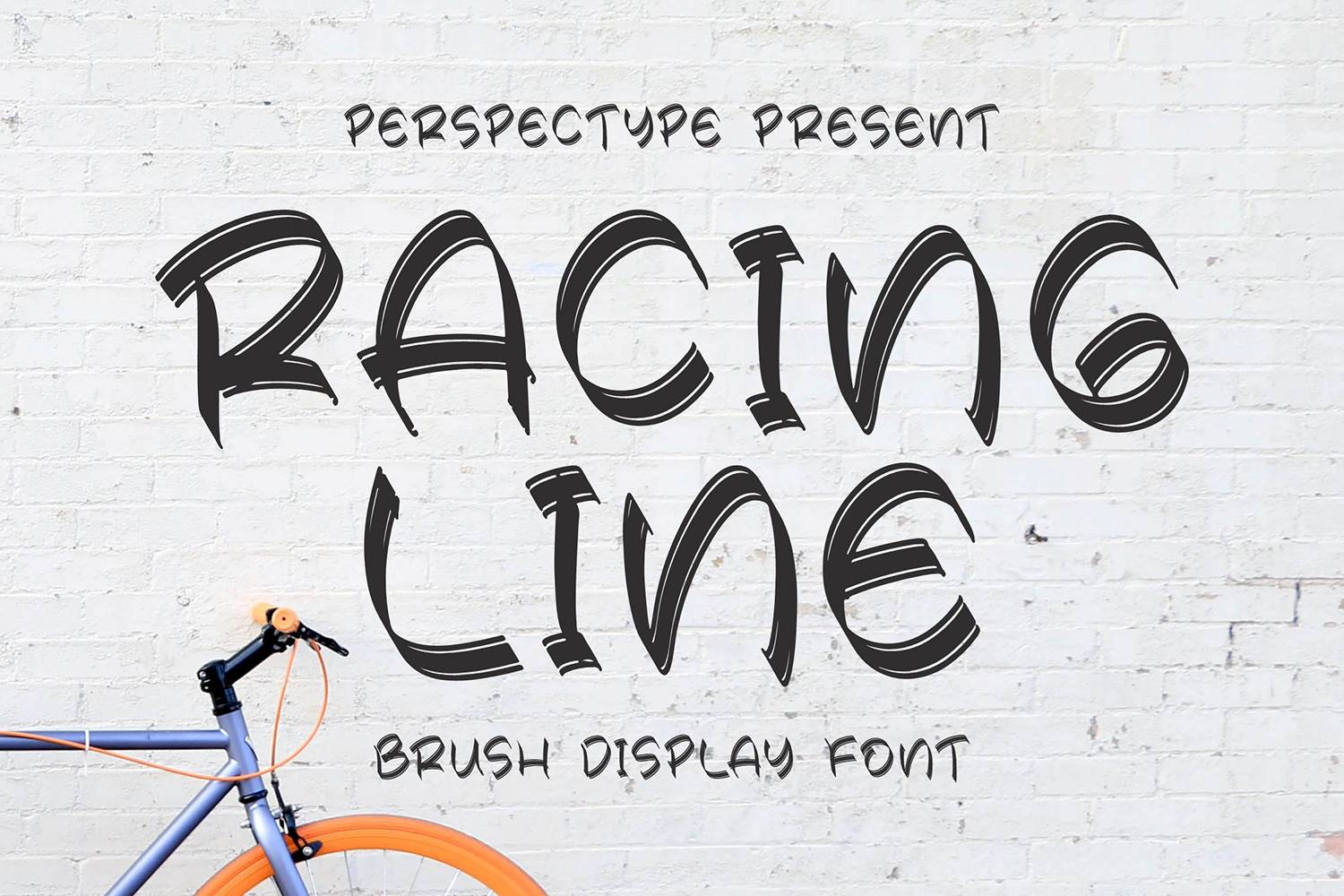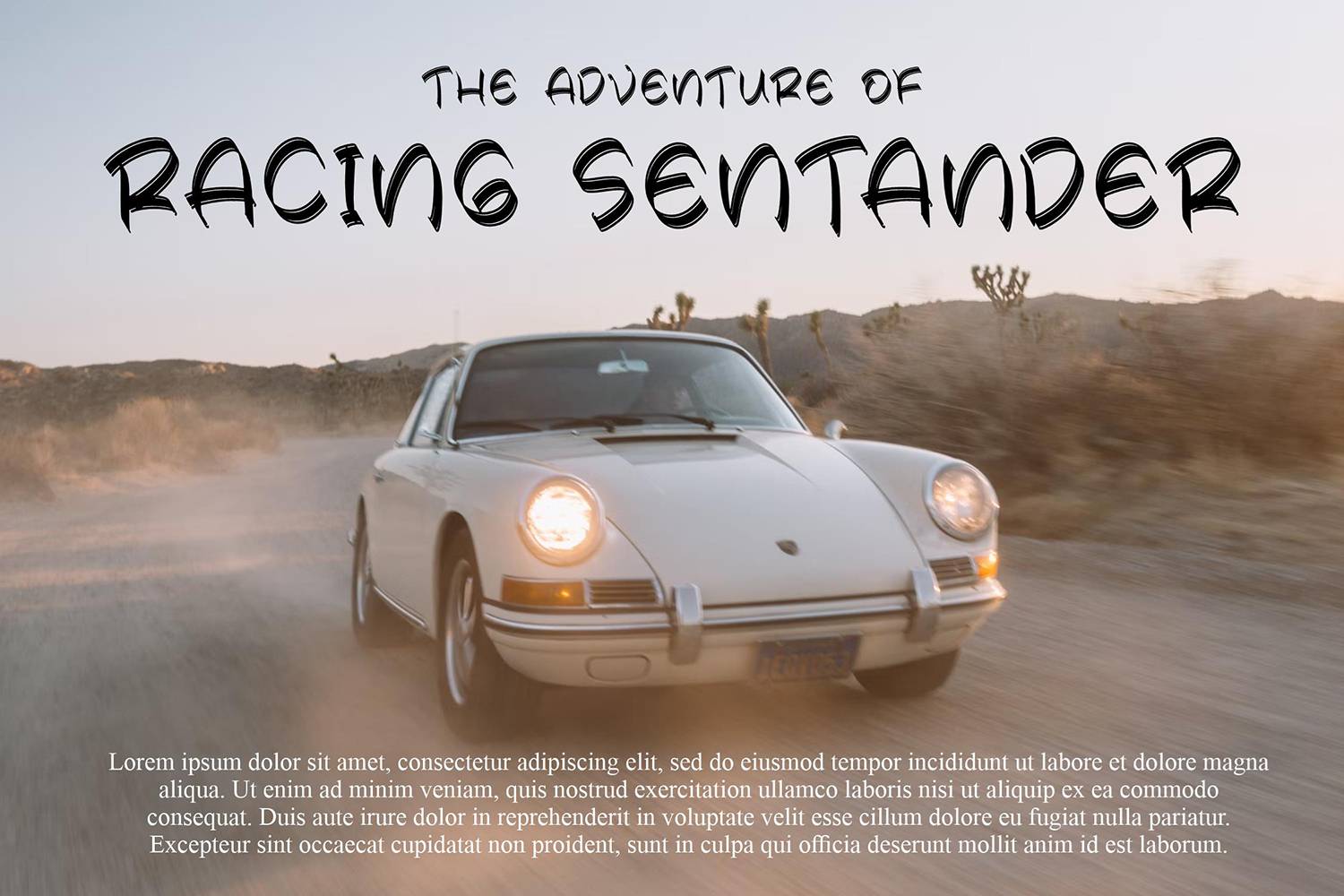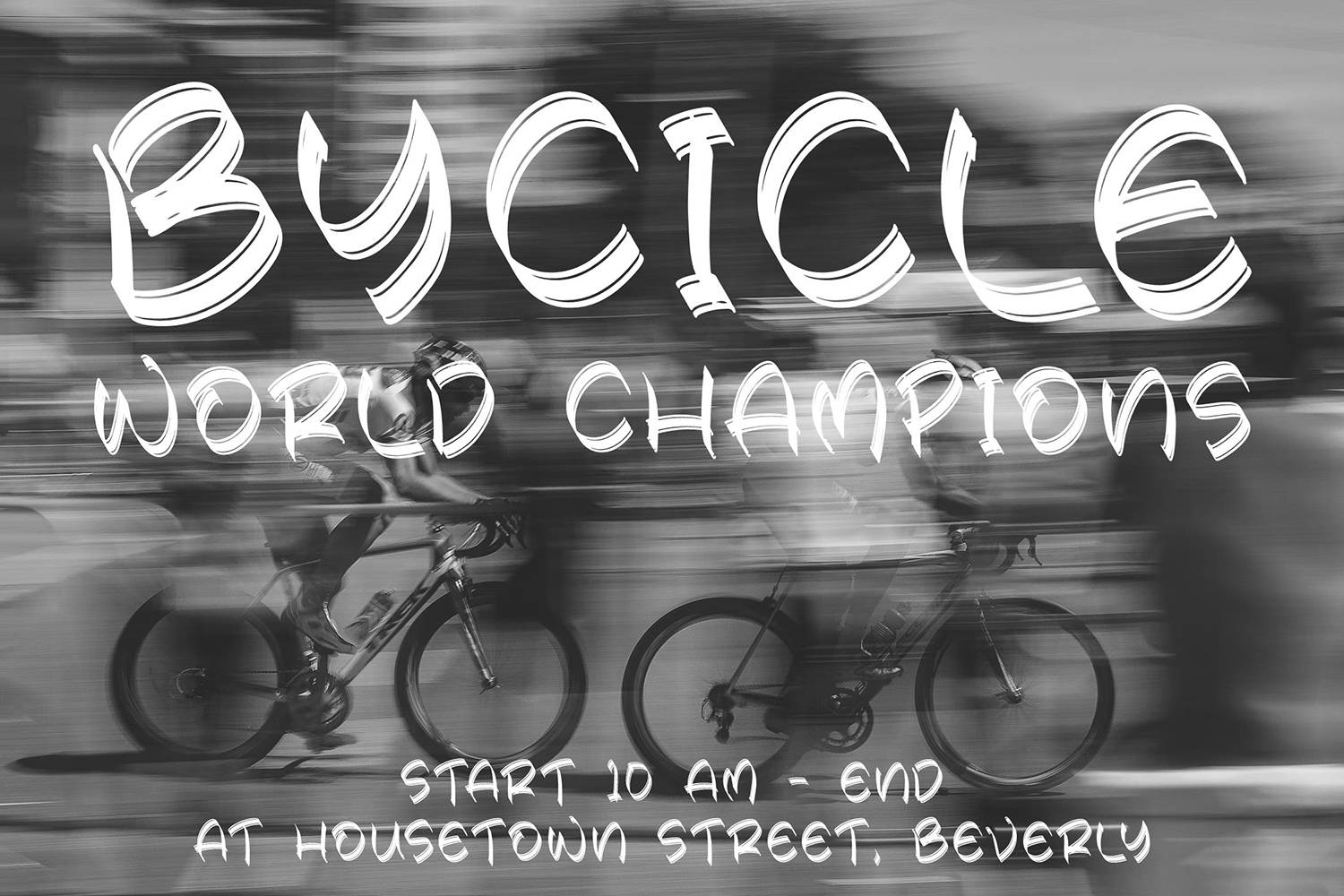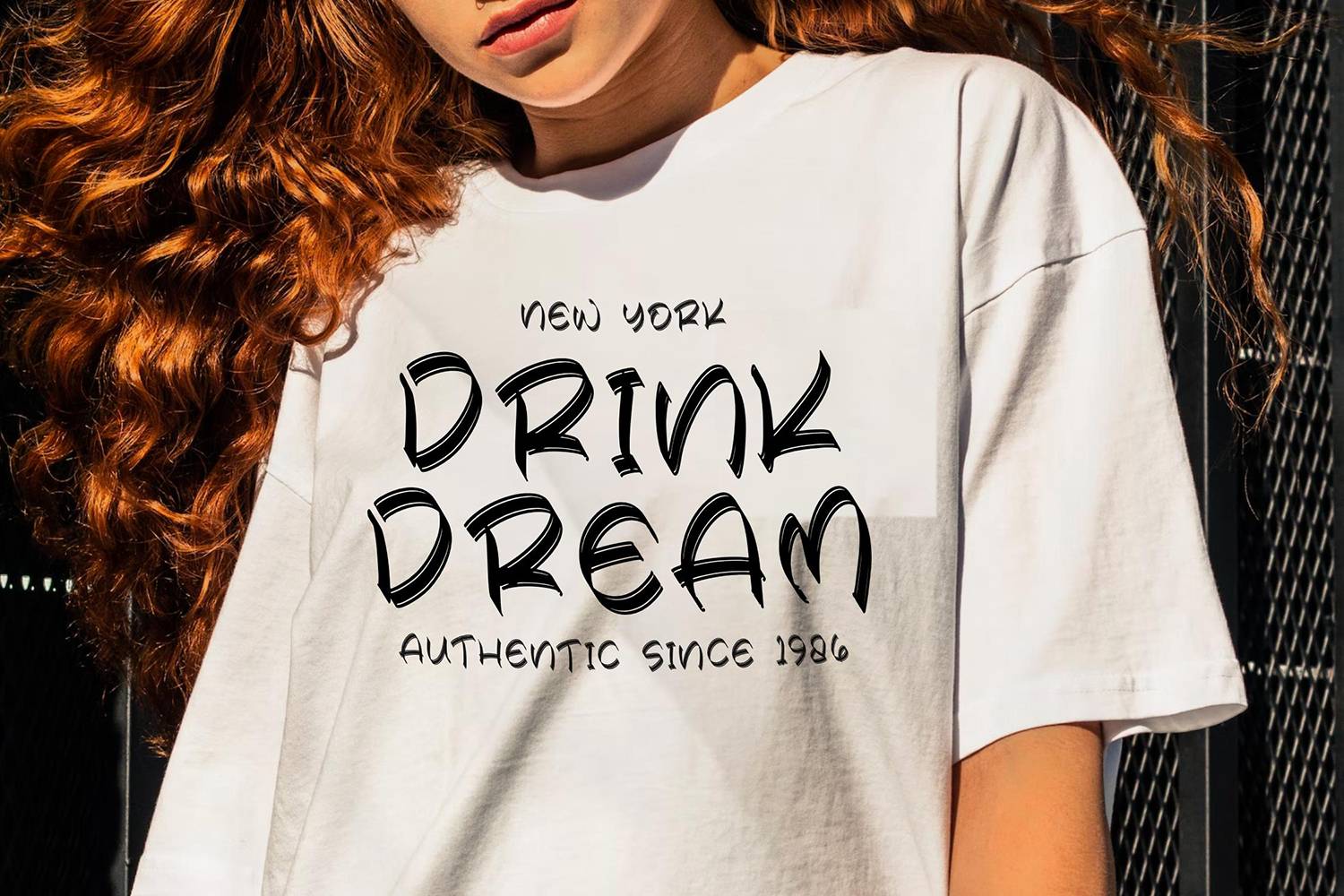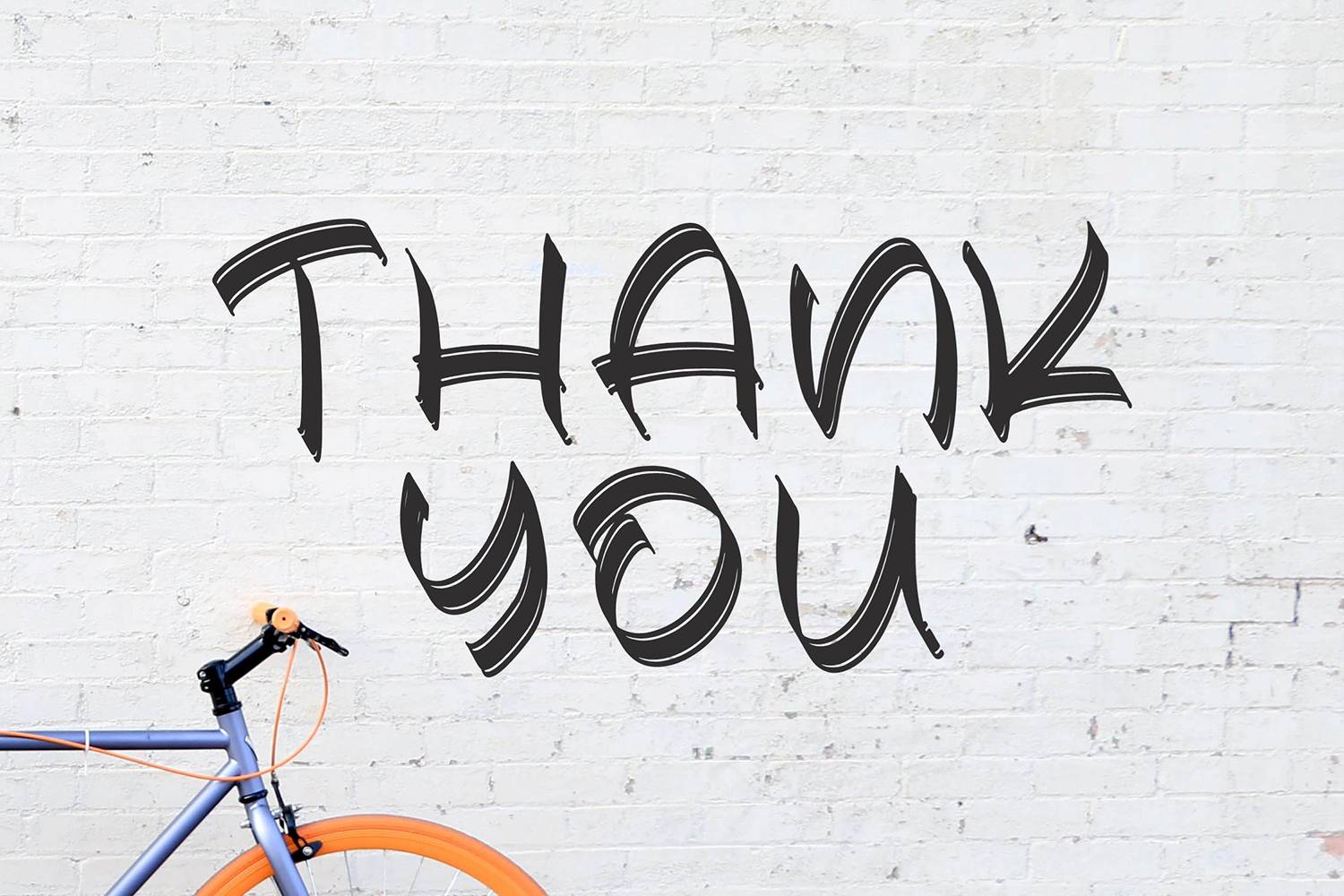
Racing Line is a playful and energetic handwritten font featuring bold, brush-like strokes with a dynamic, slightly slanted style that evokes movement and speed. Its irregular, casual letterforms and high contrast between thick and thin lines give it a lively, sporty personality, ideal for designs that want to convey excitement and action. This font works well for logos, posters, and branding in sports, automotive, and youth-focused projects where a sense of motion and informal flair is desired.
Racing Line Font